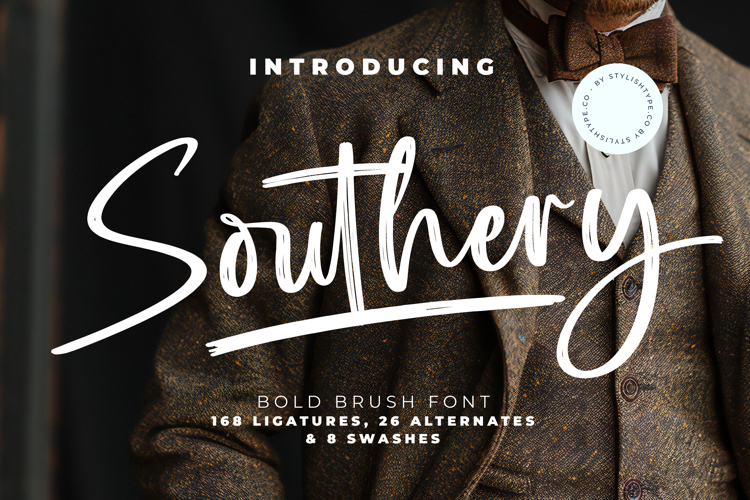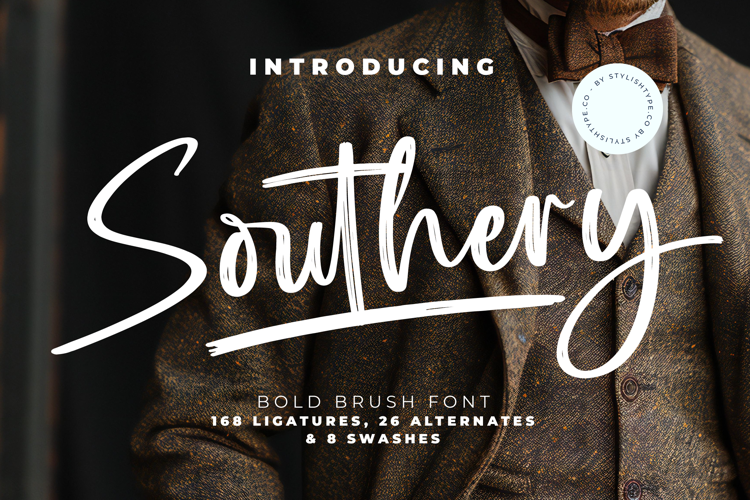
Southery - Bold Brush Font
Unleash unparalleled charisma into your designs with Font Southery - Bold Brush Font Script. This remarkable typeface embodies the raw energy and authentic charm of hand-painted brush strokes, delivering instant impact. Its robust and expressive letterforms are meticulously crafted, making it ideal for projects demanding a distinctive, handcrafted aesthetic. Elevate your visual communication with its naturally flowing yet confidently bold presence.
Experience truly boundless creativity through the rich feature set of Font Southery - Bold Brush Font Script. With 168 ligatures, 26 alternates, and 8 swashes, this font offers unparalleled customization, crafting dynamic compositions. Each variation enhances its organic, handwritten feel, ensuring a unique look. With its extensive multilingual support, Font Southery - Bold Brush Font Script adapts seamlessly across global markets, making it incredibly versatile for international projects.